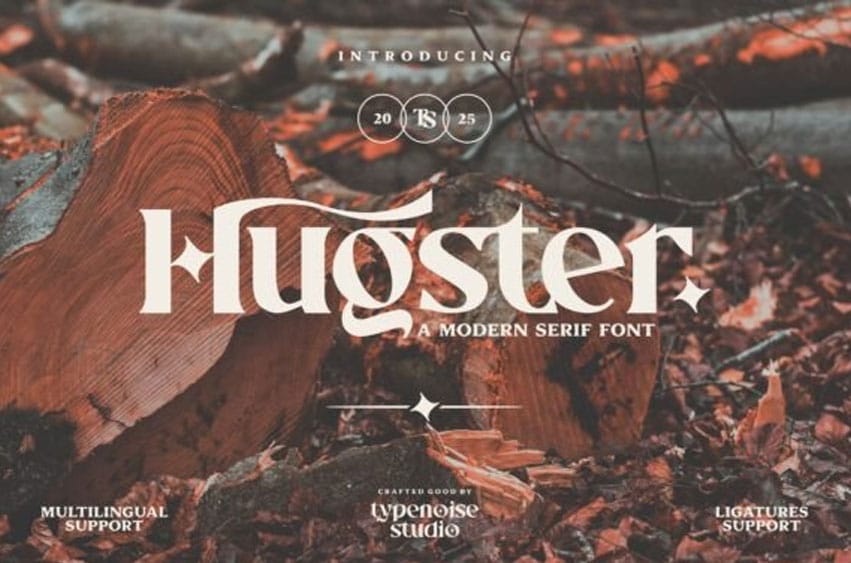
Hugster Font is a Modern Serif Font inspired by classic typography elements with a contemporary touch, featuring bold shapes with sharp edges and subtle decorative details complemented by elegant ligature characters.
Created by Typenoise Studio, this typeface is designed to give a unique, exclusive, and luxurious impression. This typeface is perfect for projects that aim to display a luxurious, elegant, and characterful brand presence in both digital and print media.
Hugster makes it ideal for various design projects, such as premium brands, logos, merchandise, posters, editorial designs, typography designs, and formal invitations.
– Lowercase & Uppercase
– Numbers and Punctuation
– Alternates and Ligatures
– Multilingual Support